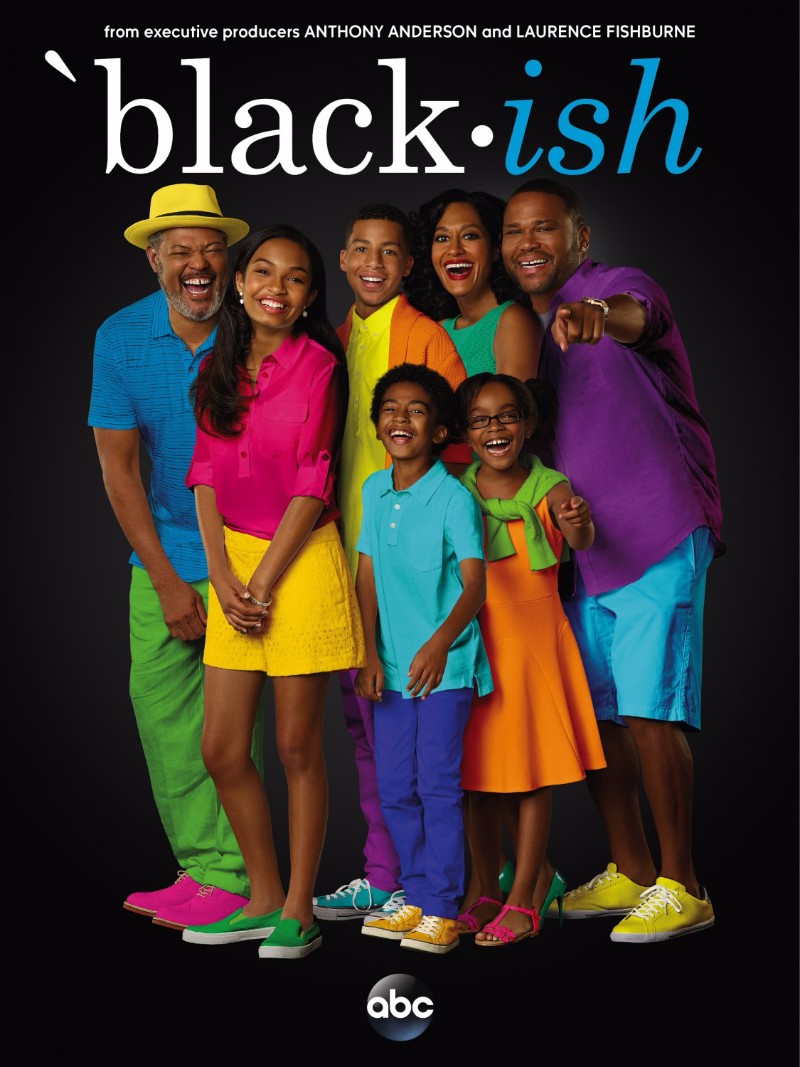
Black-ish Font
ComedyBlack-ish is an American sitcom that premiered on ABC in 2014. It centers around an upper-middle-class African American family and their experiences with cultural identity and societal issues.
The TV show's title is set in Century Schoolbook, which includes both regular and italic versions. Morris Fuller Benton created the Century Schoolbook serif typeface in 1924 initially as an easy-to-read font for textbooks.